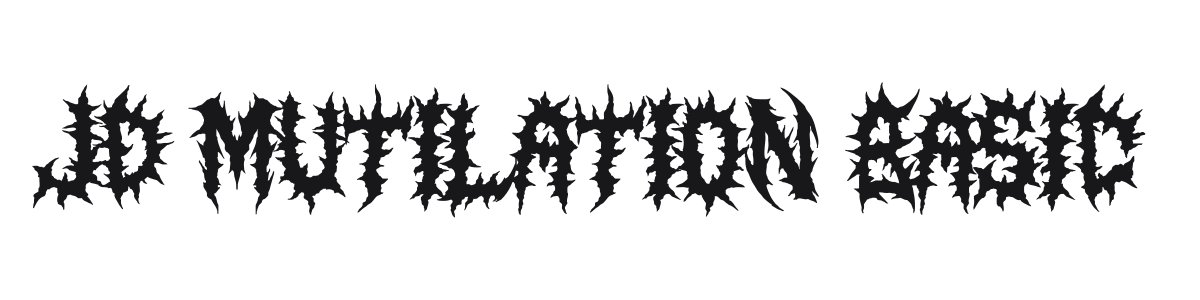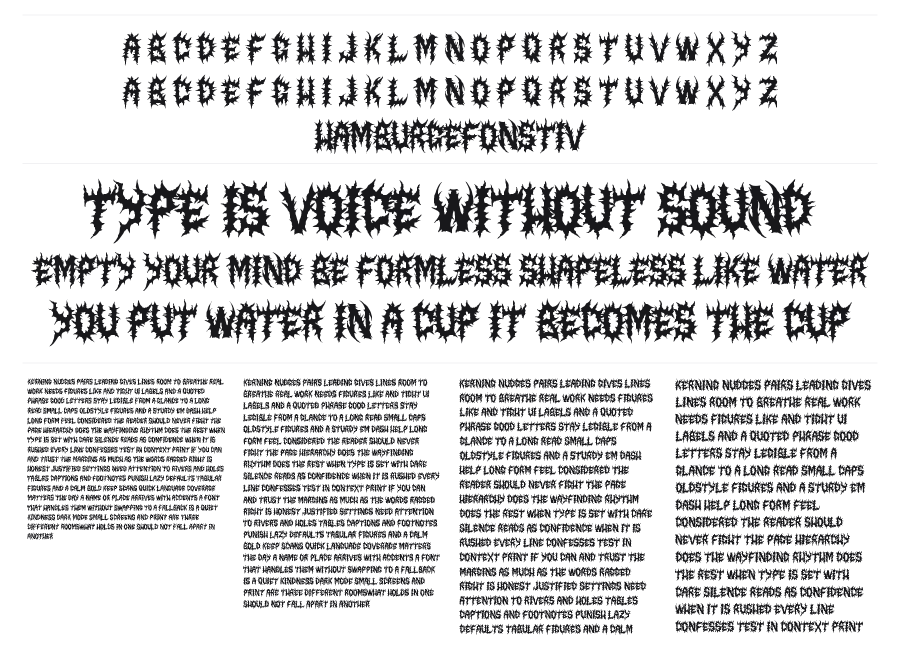
JD Mutilation Basic
JD Mutilation is a death-metal display face by Jordan Debney built from dense, heavy strokes bristling with sharp organic spikes and jagged protrusions. Every character looks like it was ripped rather than drawn, with a raw, violent texture that recalls torn flesh and rusted metal. A natural choice for band logos, horror branding, and anything that needs to feel genuinely menacing.